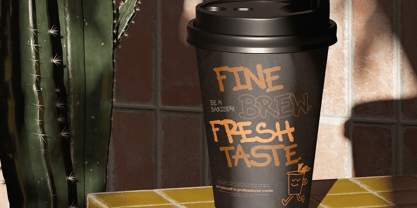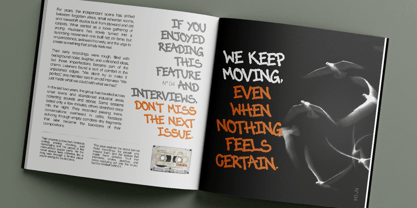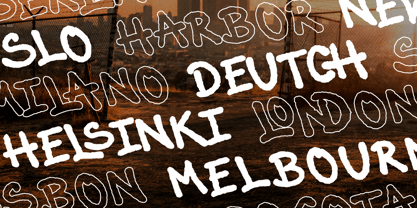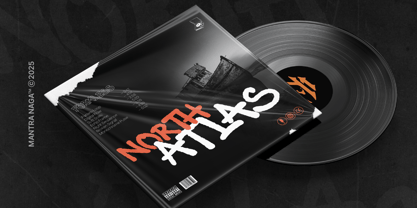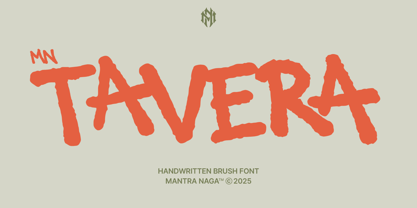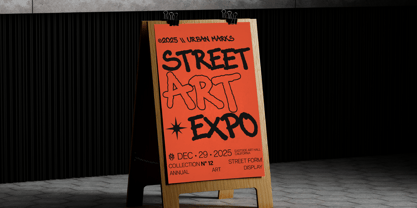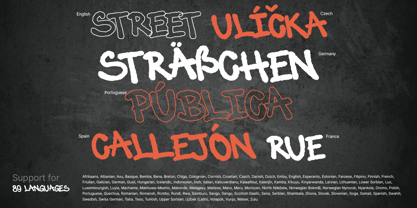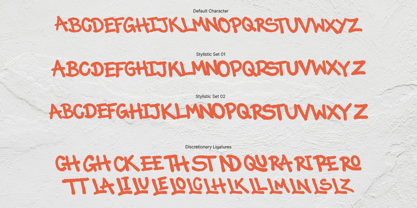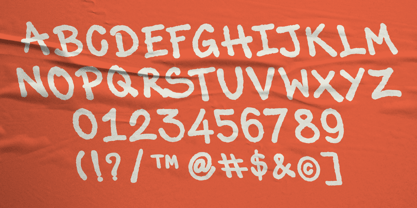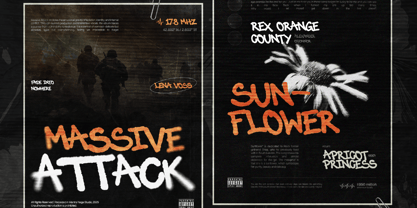
MN Tavera
The MN Tavera Font Family was designed by Fredo Eka Pratama and published by Mantra Naga Studio. MN Tavera contains 2 styles and family package options. More about this family
MN Tavera is a handwritten brush font that brings the raw, bold, and authentic energy of the streets directly to your designs. Crafted with rough, decisive brush strokes, this font is perfect for projects requiring an urban touch, a grunge aesthetic, and a powerful character. Whether you are working on streetwear designs, concert posters, album covers, or a brand identity that needs to stand out, MN Tavera delivers a "loud" visual impact while remaining professional and highly legible. Product Features: Dual Styles: Includes both Regular (Solid) and Outline versions for creative layering and dynamic layouts. Extensive Character Set: A massive library of 400+ Glyphs, including All-Caps characters, numbers, and comprehensive punctuation. Natural Flow: Packed with 52 Custom Ligatures and stylistic alternates to give your typography a true hand-painted feel, avoiding repetitive letterforms. Global Reach: Multi-language support for 89+ languages, making it ready for international projects. High-Resolution Texture: Every stroke is meticulously crafted to maintain a realistic dry-brush effect even at large sizes. Ideal For: Streetwear & Apparel: T-shirt designs, hoodies, and headwear branding. Music & Entertainment: Grunge album covers, gig posters, and DJ visuals. Sports & Action: Gym branding, extreme sports graphics (skating, motocross, MMA). Digital Content: Eye-catching YouTube thumbnails, social media quotes, and edgy advertising.